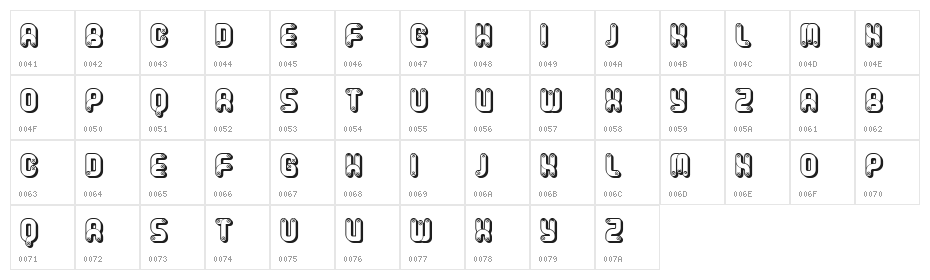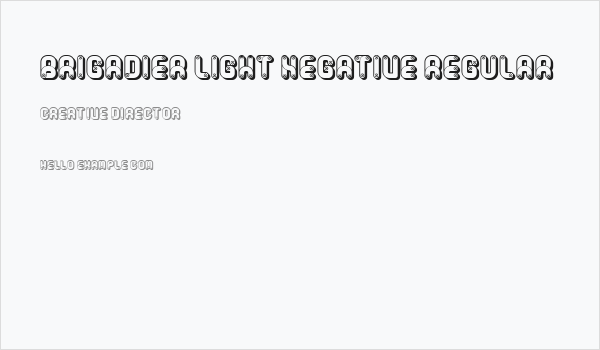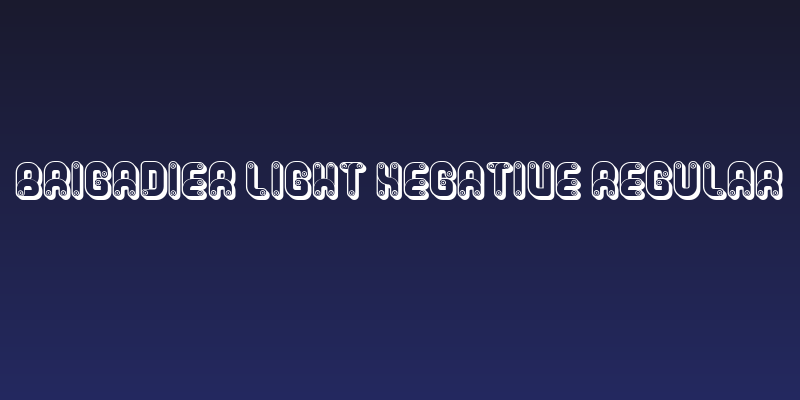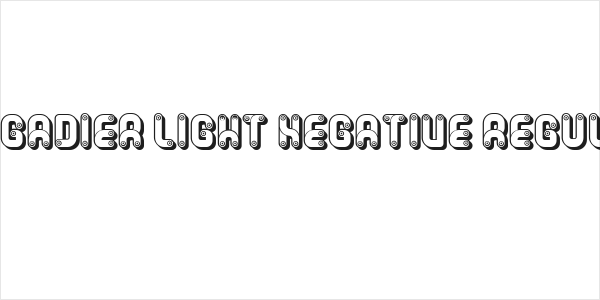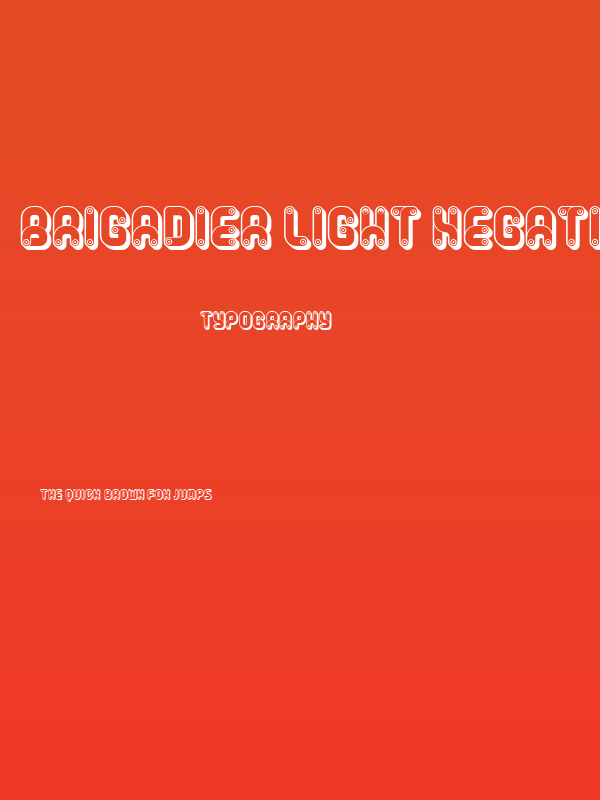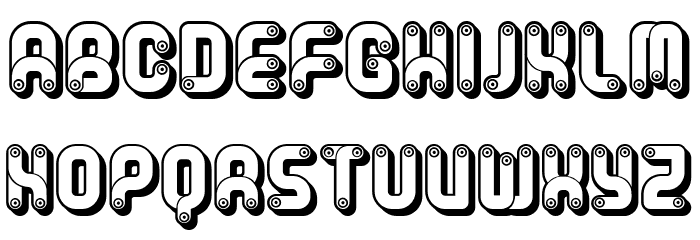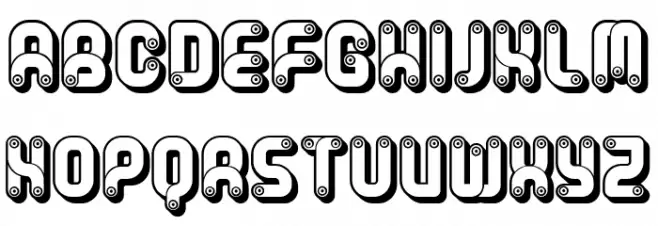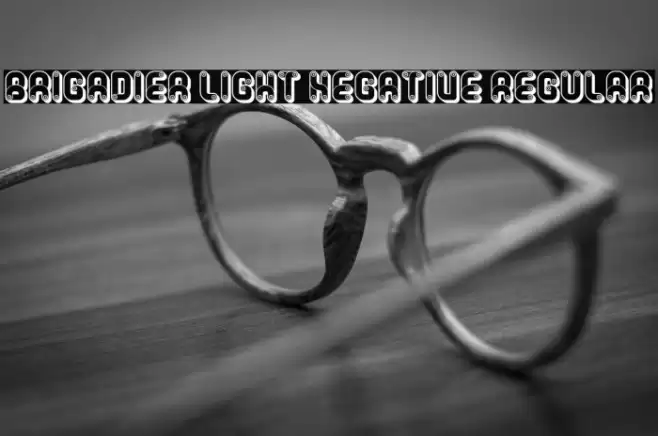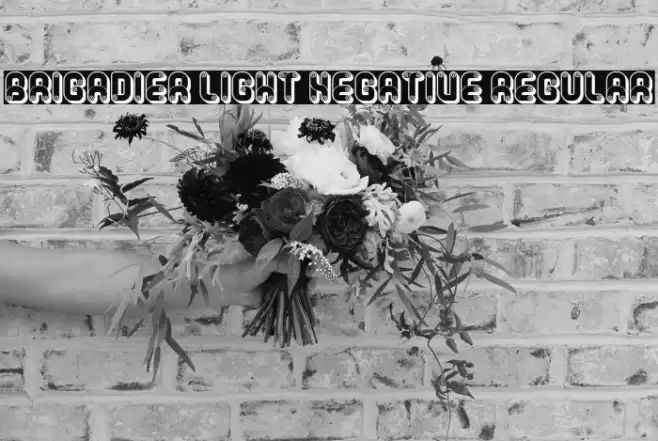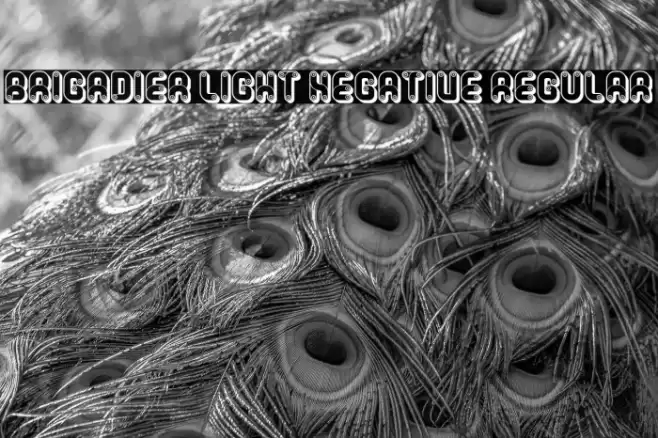
Brigadier Light Negative Regular Font
| Categorías | Decorative |
| Estilo general | Futuristic, Industrial |
| Proyectos propuestos | Ideal for tech-themed posters, futuristic branding, video game titles, and industrial design projects. |